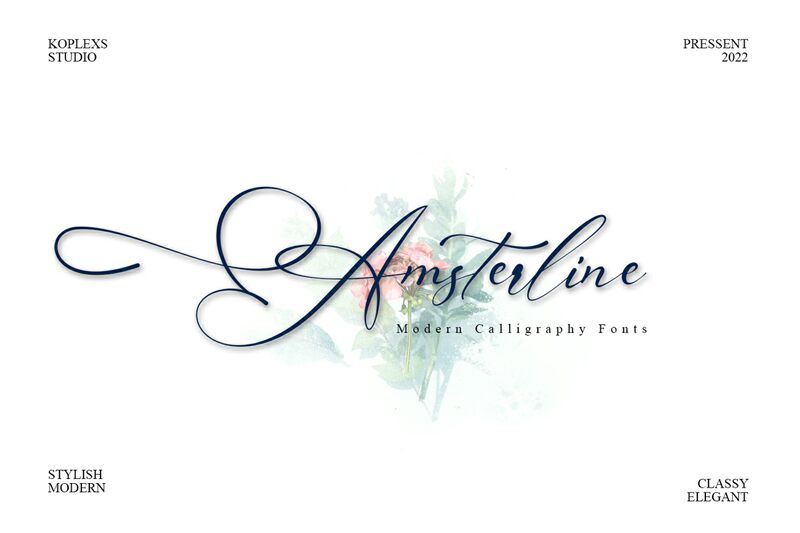
Amsterline, designed by Koplexs Studio, is a captivating calligraphy font that exudes elegance and sophistication. With its delicate strokes and graceful curves, this extra-light font adds a touch of refinement to any project.
Perfect for wedding invitations, luxury branding, or high-end fashion editorials, Amsterline effortlessly creates a sense of beauty and romance. Its flowing script captures attention and conveys a sense of timelessness.
Whether you're designing an exquisite logo or crafting an enchanting book cover, Amsterline is the ideal choice for projects that demand a touch of class.